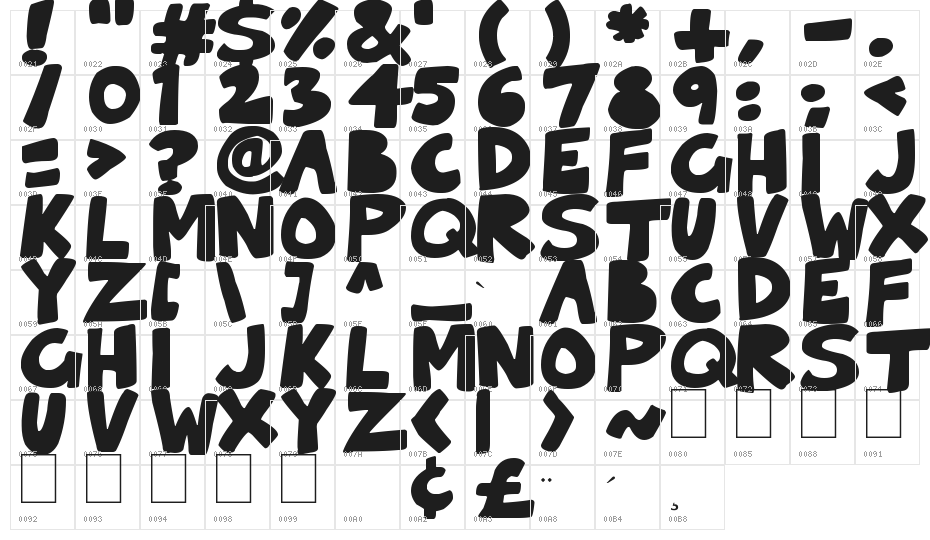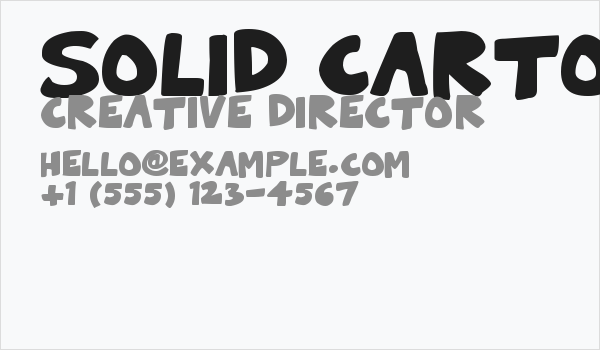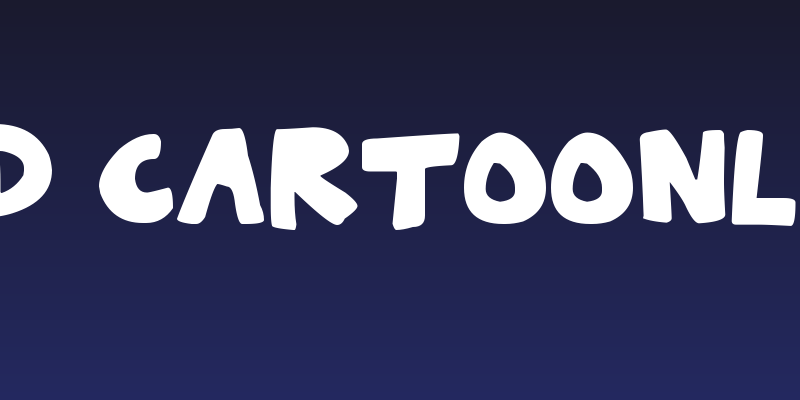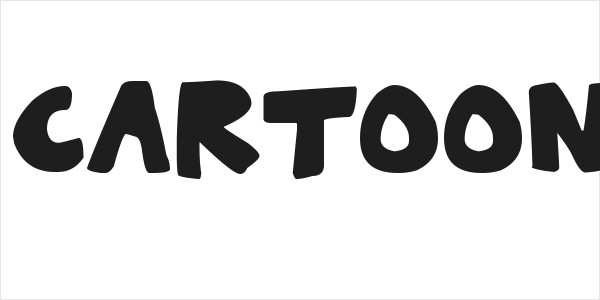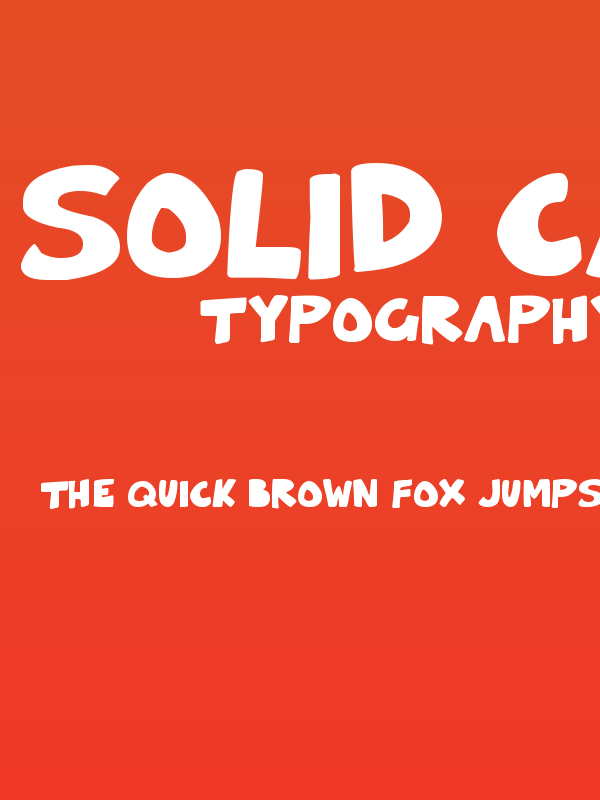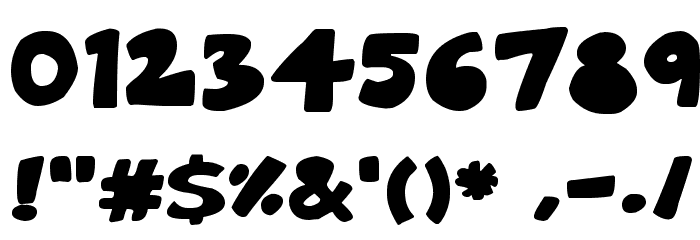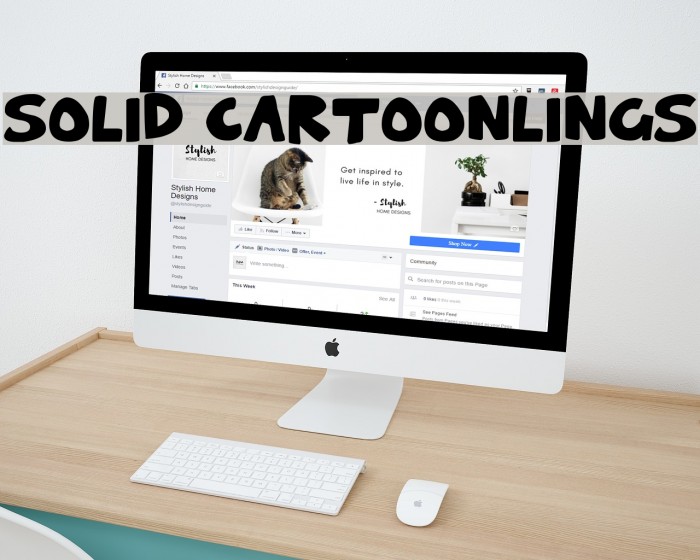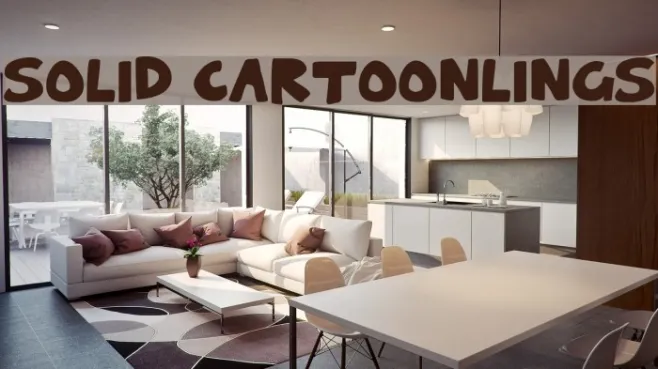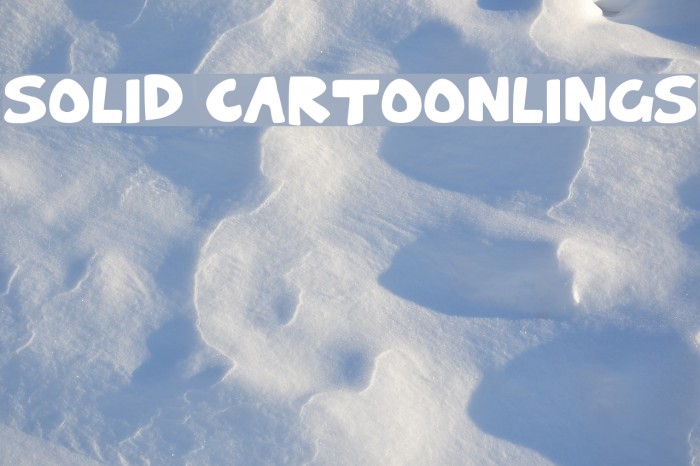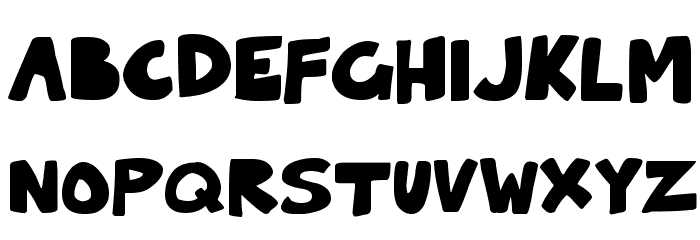
Solid Cartoonlings Font
Solid Cartoonlings Description
This playful and bold font features thick, rounded characters that exude a fun and cartoonish vibe. The letters are slightly irregular, giving them a hand-drawn appearance that adds to their charm. The font is highly legible, with clear distinctions between each character, making it suitable for a variety of creative projects. Its whimsical style is perfect for capturing attention and conveying a sense of joy and energy. The numbers and special characters maintain the same lively aesthetic, ensuring consistency across all text elements.
| Overall Style | Cartoonish, Playful |
| Proposed Projects | Ideal for children's books, comic strips, playful branding, and party invitations. |